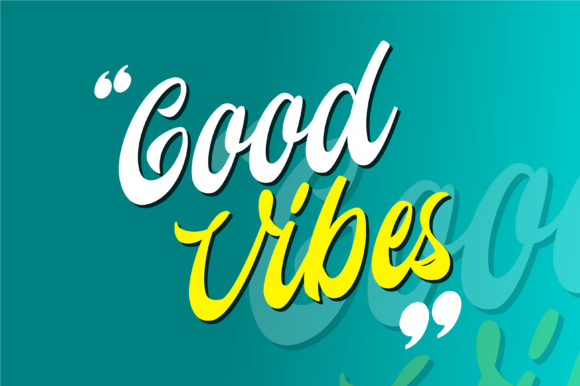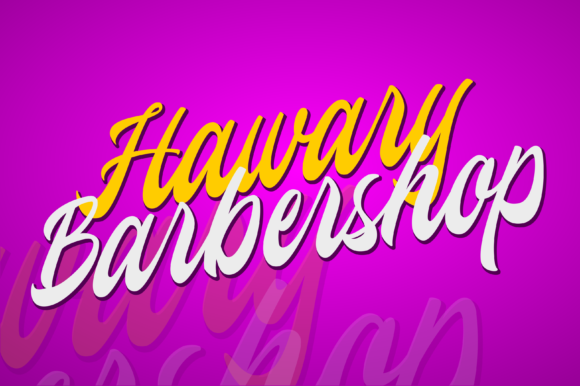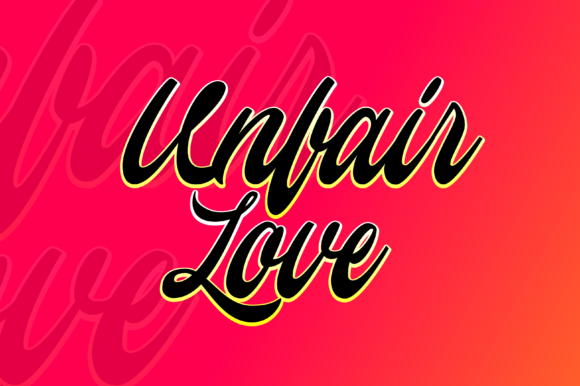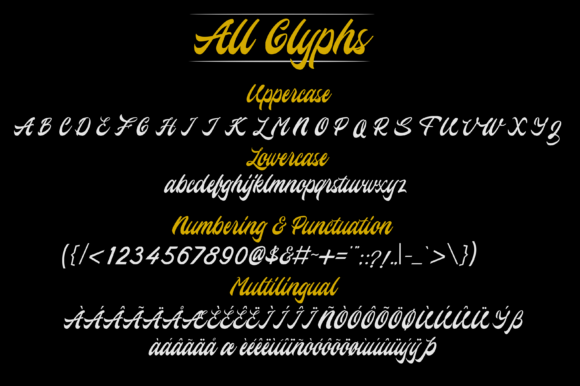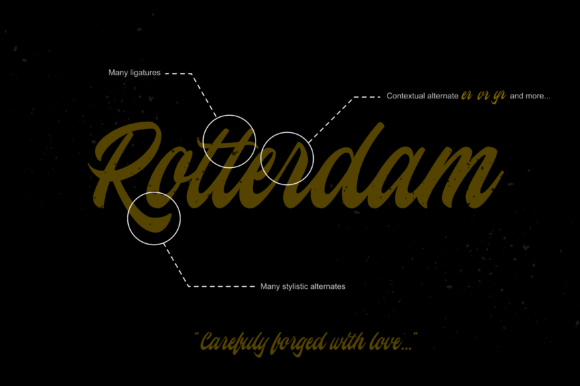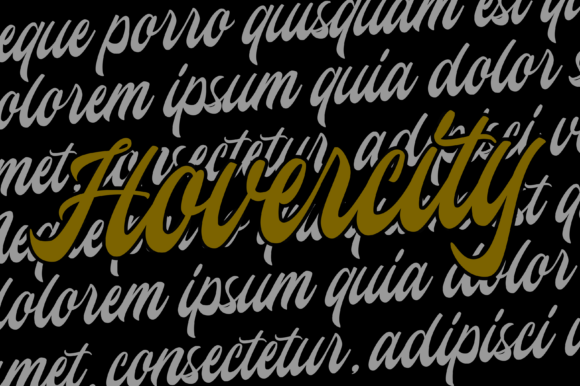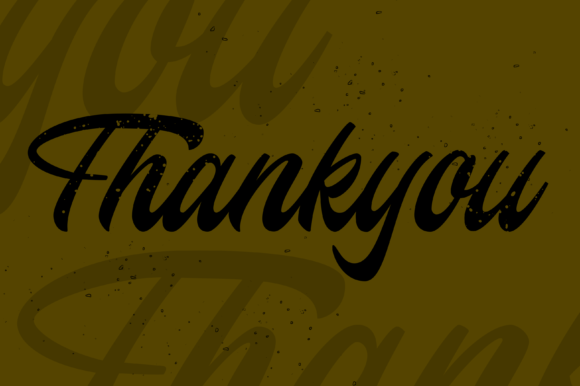
Hovercity Font
About Hovercity Font
The Hovercity is a bold script font. It’s striking look makes it perfect to make any design stand out with an unique look.
It’s suitable for many projects, but especially for displays, titles, and logos.